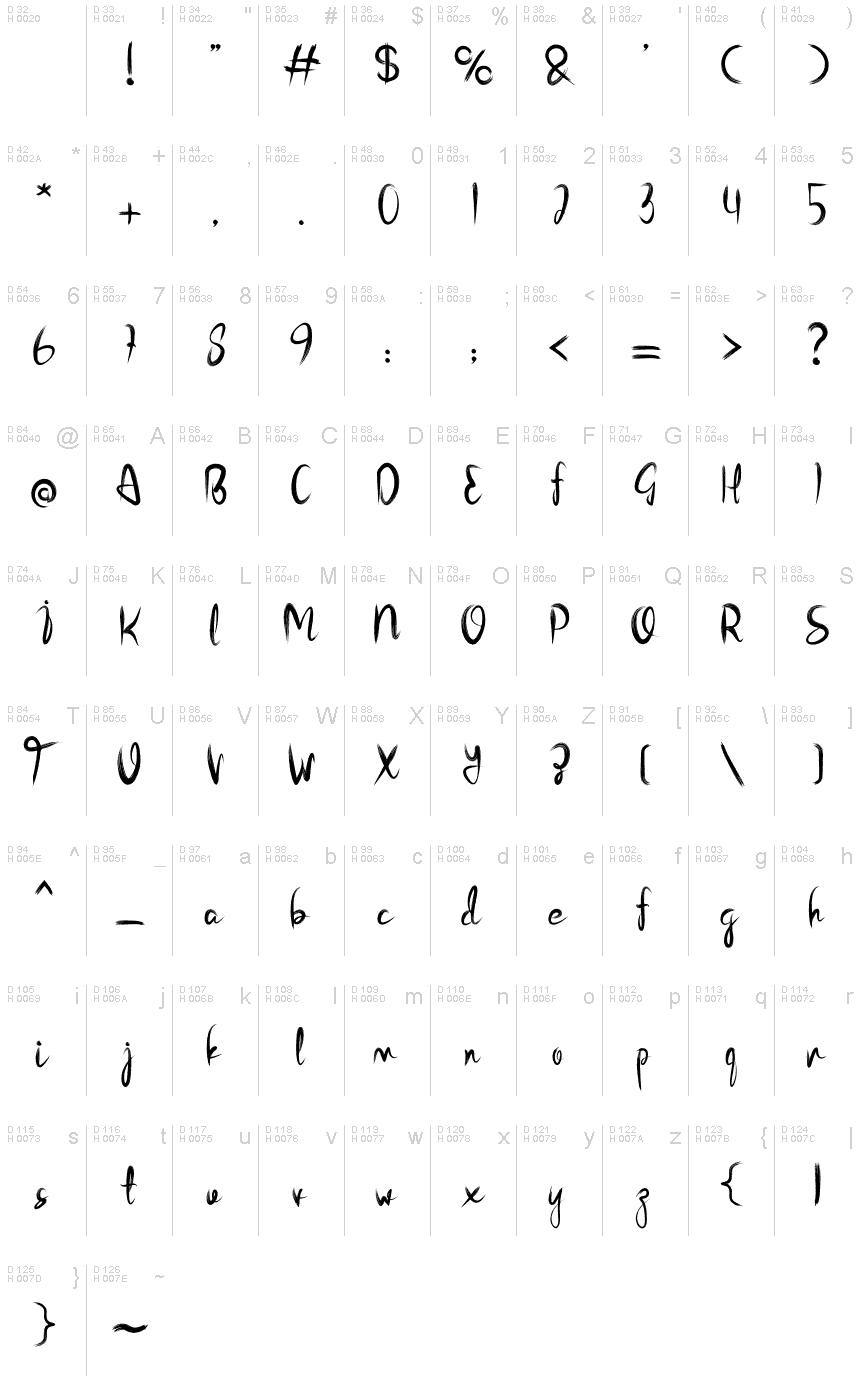
Art
Art, a captivating semi-light handwritten font by Design Vector10, delivers an artistic touch to any project. Its unique semi-condensed width results in an elegant, yet modern look that is perfect for branding and advertising campaigns. Art's smooth curves and playful strokes make it an excellent choice for social media graphics, greeting cards, and invitations. Whether you're designing a logo or creating a poster, this font will add a personal touch to your work. Impress your audience with Art's charming flow and make your projects stand out from the crowd.